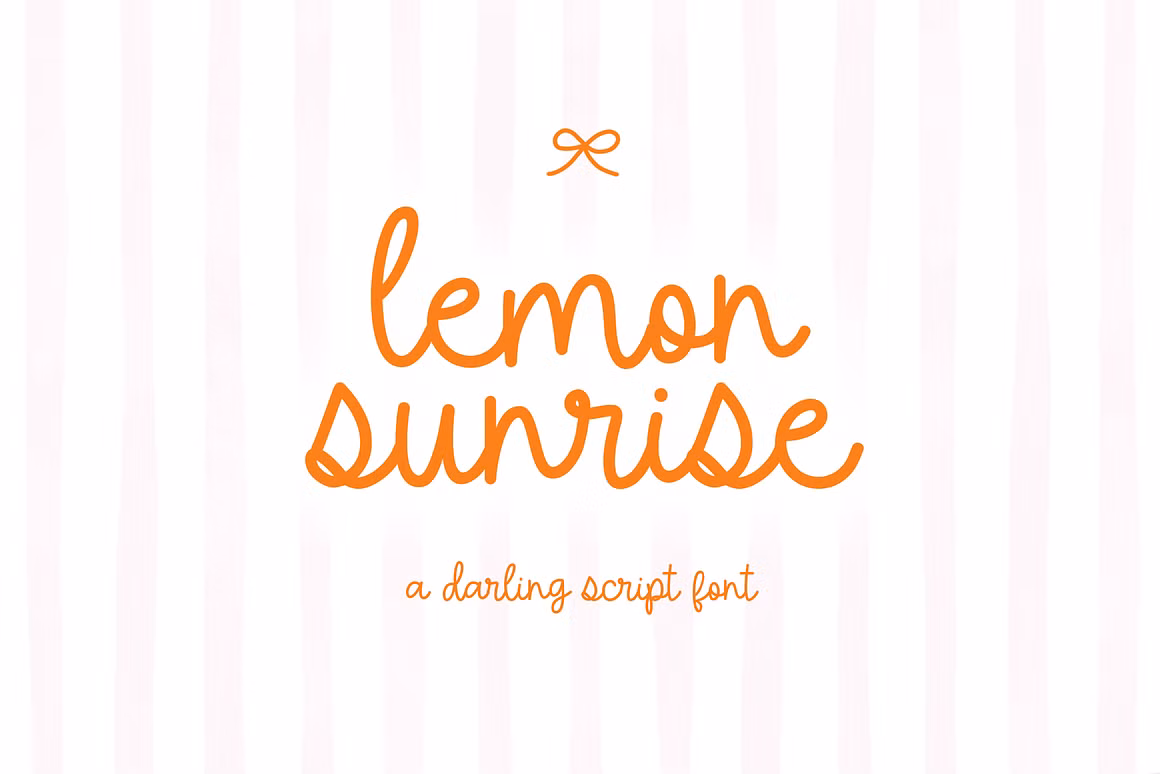
Lemon Sunrise is a playful, whimsically charming cursive script with a friendly, hand-drawn feel. It’s packed with personality and warmth, designed specifically for creative projects that crave a touch of whimsy and human character.
Whether crafting wedding invitations, cute branding, social media quotes, or Cricut & SVG designs, Lemon Sunrise brings a delightful, personal twist to your creations. It’s also perfect for logos, planner layouts, teacher materials, and digital stickers—anywhere you want to convey joy and informality.
Lemon Sunrise Font Features
– Handwritten cursive with natural flow –
– Includes stylistic alternates & swashes –
– Equipped with standard ligatures –